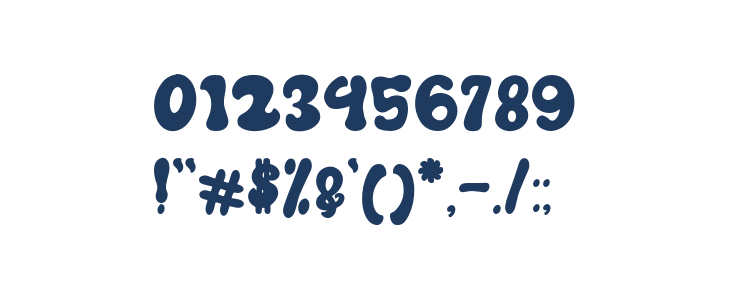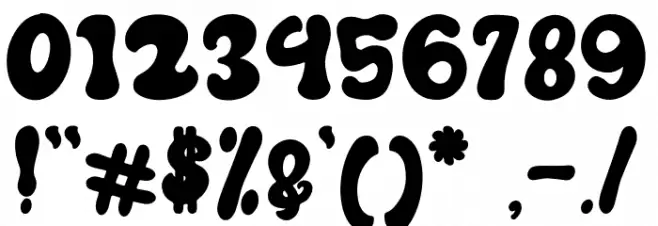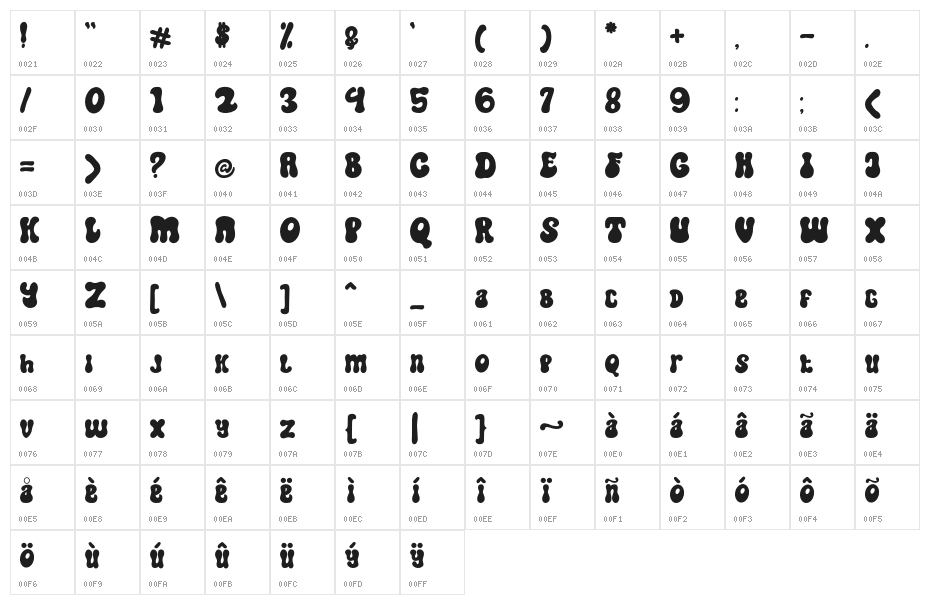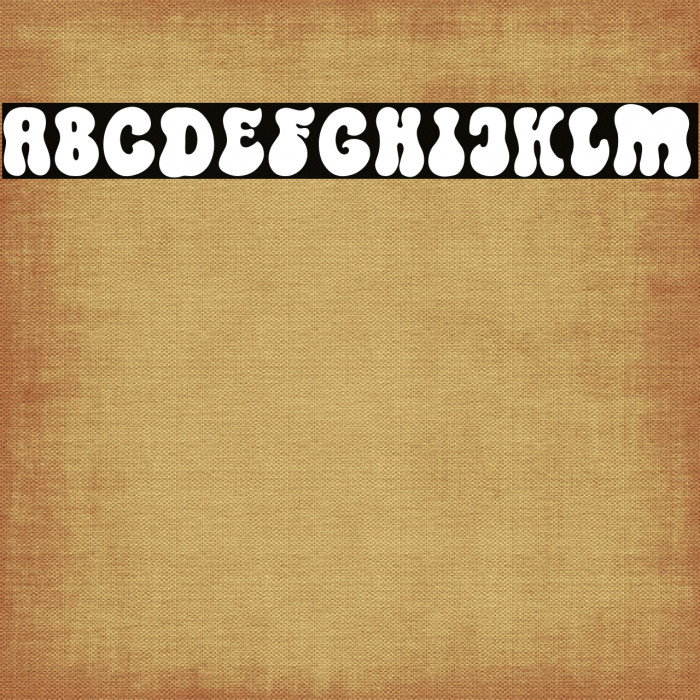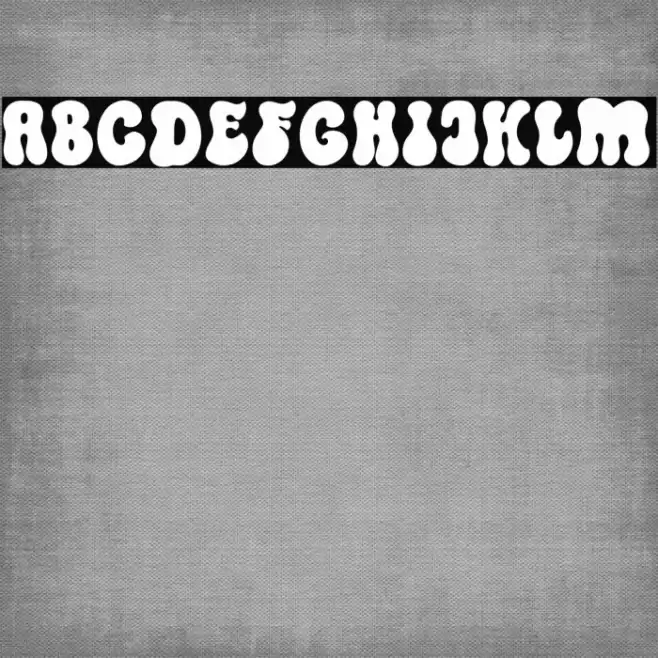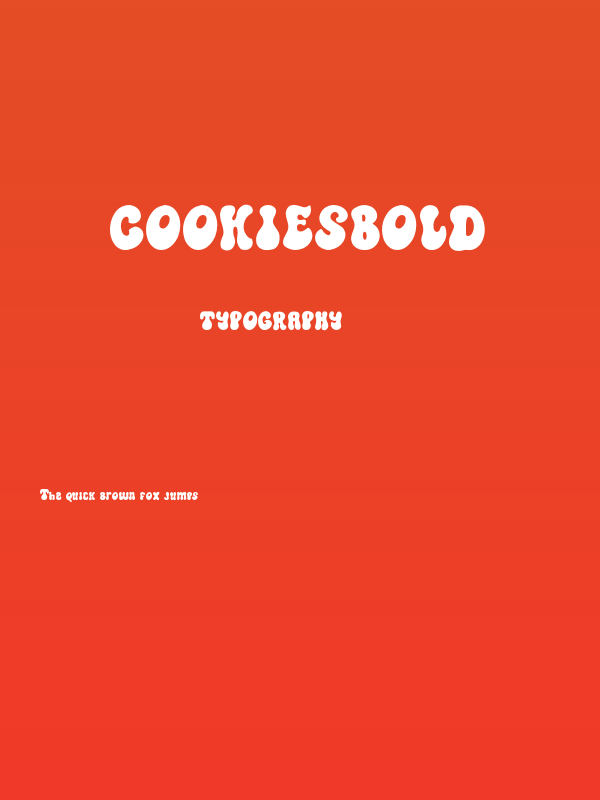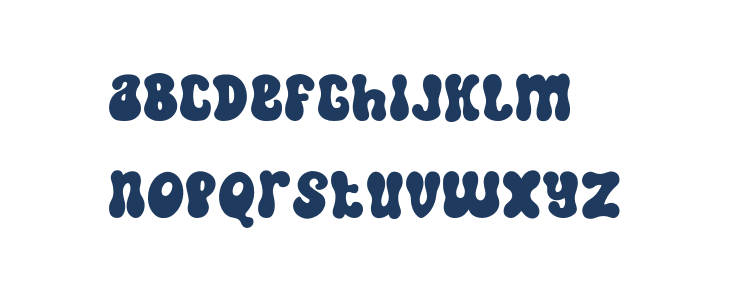
Cookiesbold Font
Cookiesbold Description
This playful and bold font features thick, rounded characters with a bubbly appearance, reminiscent of playful shapes or cartoonish styles. The letters are uniformly bold, with a consistent stroke width that gives them a strong presence. The characters have a whimsical, almost liquid-like form, making them stand out with a unique personality. The numbers and special characters follow the same design principles, ensuring a cohesive look across all glyphs. This font is ideal for projects that require a fun and engaging visual style.